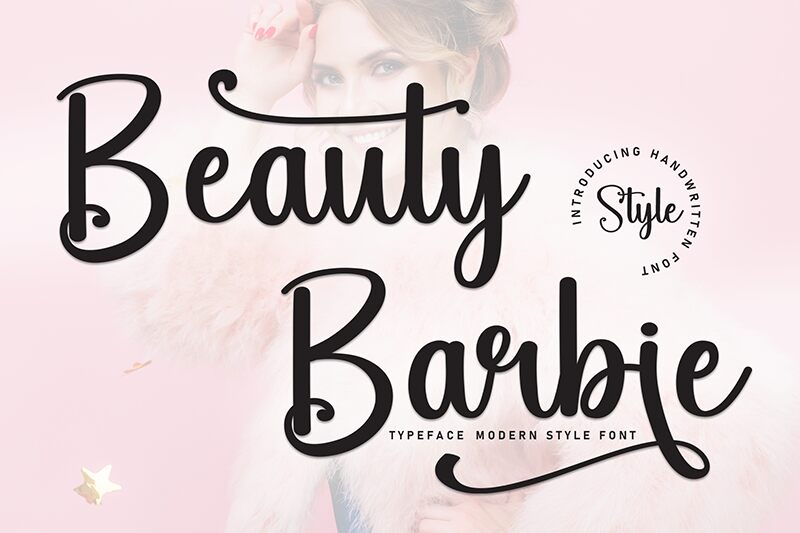
Beauty Barbie
Beauty Barbie font by Andi Moz pairs the elegance of handwritten fonts with fun contemporary script displays. The aesthetic is whimsical, cheerful, and flowing without being too much. Its letters are all connected with soft thin lines and readers’ eyes flow smoothly as they read Beauty Barbie texts.
Use this modern script typeface in poster designs, mug typography, greeting cards, book covers, party invitations or flyer designs. A free calligraphy font for beauty product packaging design and branding projects among various other uses which you might have for it.